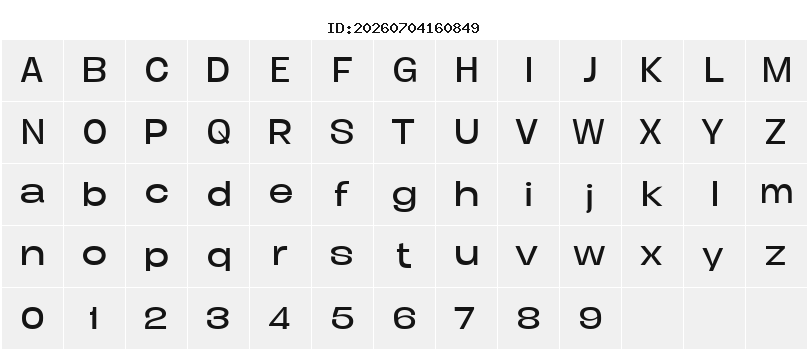
• Font Name: Duera PERSONAL USE Expanded
• Font Style: Light
• Designer: Mans Greback
About Duera PERSONAL USE Expanded.ttf
Duera PERSONAL USE Expanded.ttf is a modern, elegant sans-serif font designed for ultimate readability and visual harmony. Perfect for branding, headlines, web design, and print materials.